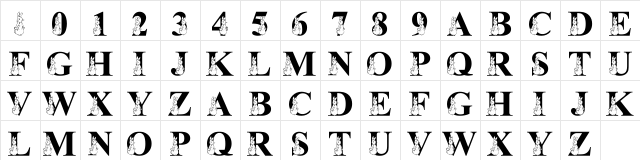
LMS My Favorite Rabbit Regular Free Font
LMS My Favorite Rabbit Regular
Design Context for LMS My Favorite Rabbit
LMS My Favorite Rabbit is a composed and adaptable typeface that performs quietly and consistently across a wide range of design contexts.